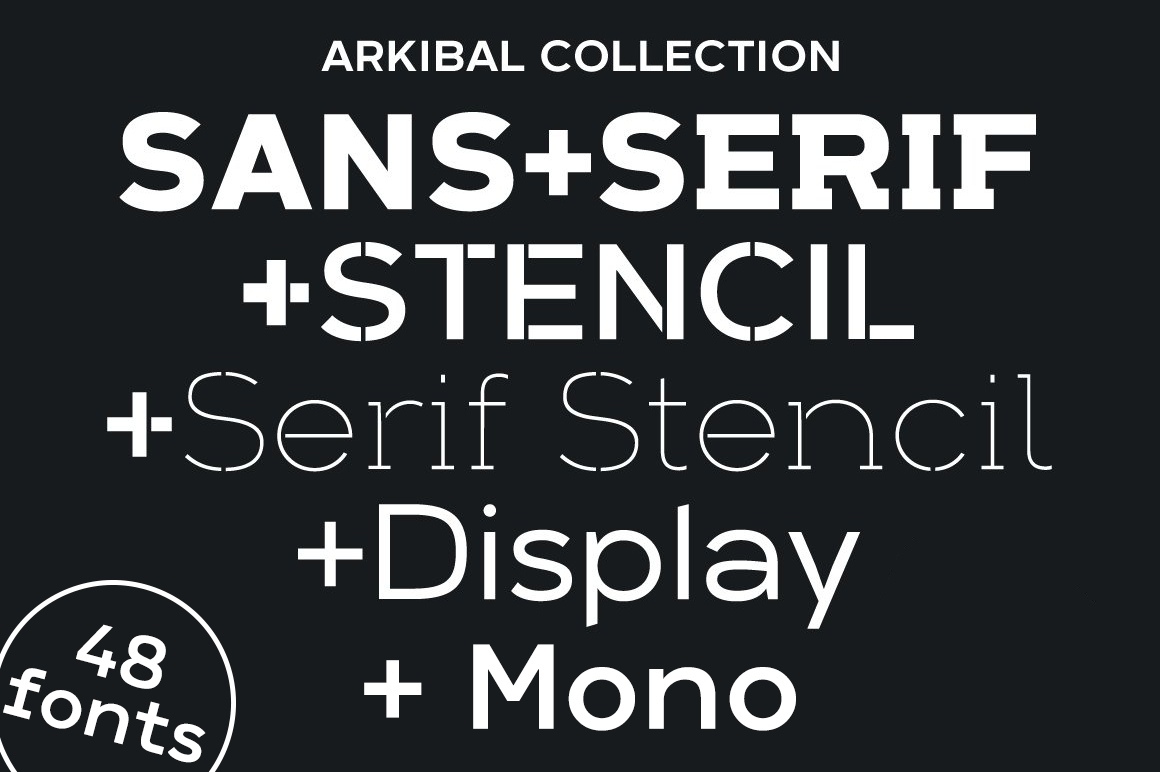
Arkibal Font
Arkibal Font is perfect for branding, website headings, social media graphics, poster designs, and editorial layouts. Its clean, modern, and versatile design makes it ideal for a wide range of creative projects.
What makes Arkibal Font exciting is its sleek, well-balanced letterforms that combine readability with a contemporary, stylish aesthetic. The font’s design ensures your text stands out with clarity and sophistication.
The Arkibal Font family includes Regular, Bold, Italic, and Light variations, providing designers flexibility to create cohesive and visually appealing typographic compositions.